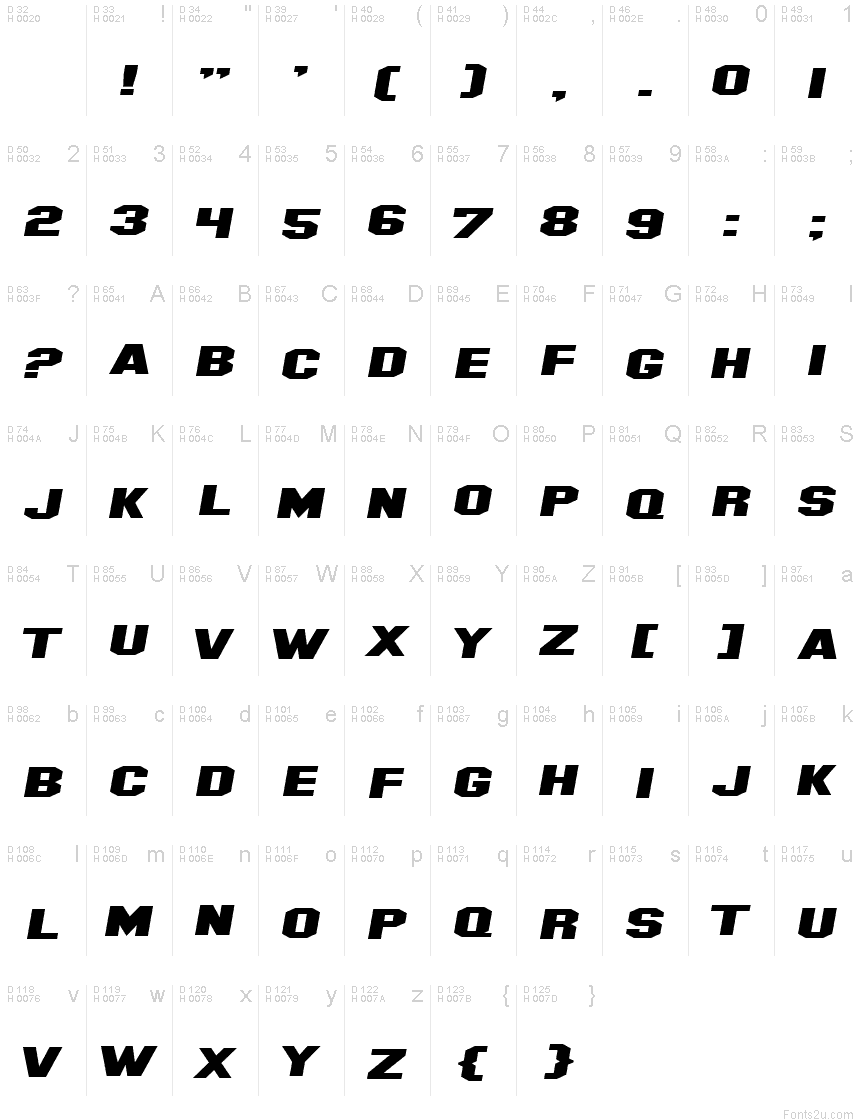
Hollywood Hills Expanded Italic
Hollywood Hills Expanded Italic font by Shywedge is a free cinematic display typeface that looks like it was pulled straight from a bold action-movie title card. Wide, slanted letters surge forward with a strong diagonal thrust, while the blocky, squared forms give every word a tough, futuristic edge. It feels loud, fast, and slightly gritty—like neon credits streaking across a night sky.
Using Hollywood Hills Expanded Italic, your text instantly reads as trailer-ready: it shines on movie posters, fan edits, YouTube thumbnails, gaming covers, sci‑fi or sports logos, and bold event flyers. This free font works best in large sizes, with plenty of breathing room around each word; pair it with a simple, narrow sans serif for smaller copy to keep the focus on those racing, expanded title lines.